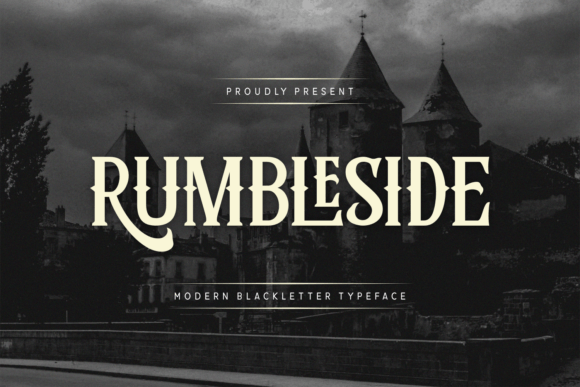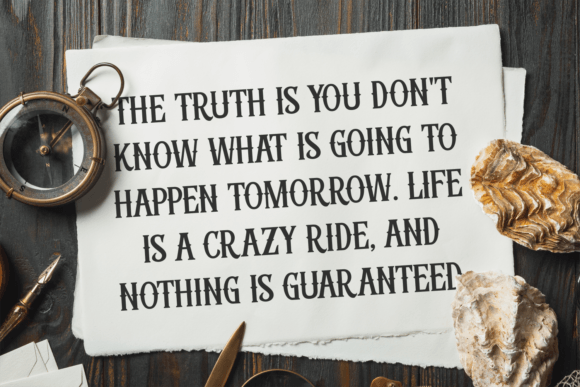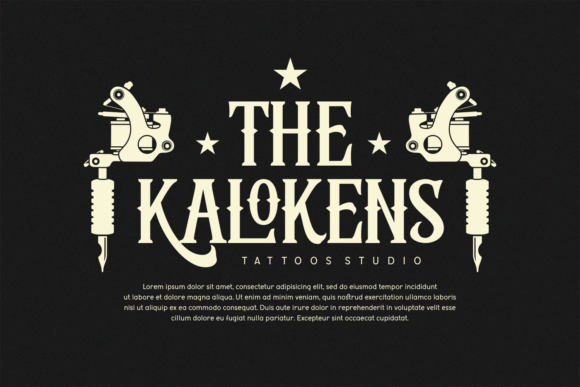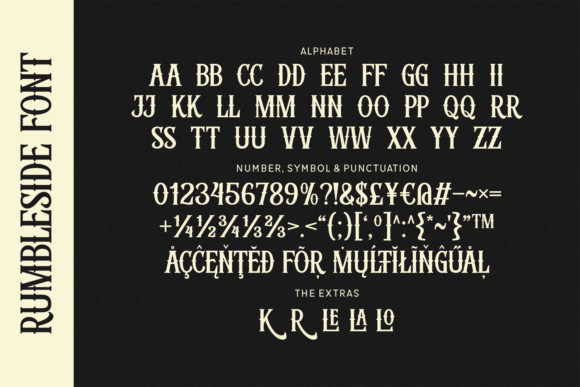
Rumbleside Font
About the Rumbleside Font
Experience the unique personality of Rumbleside Font, a font designed for impact. Rumbleside is a bold blackletter font that combines classic style with modern flair. Its sharp edges and elegant curves make it perfect for creating eye-catching designs, logos, or headlines. This font brings a sense of tradition and sophistication, making it ideal for any project that needs a strong visual impact.
Rumbleside excels in headline treatments, short impactful text blocks for branding projects, and striking logotypes. Its strong visual presence makes it unsuitable for body copy or extended text; readability suffers at smaller sizes. Consider it for posters, packaging design, or even short, bold captions within a larger layout.
The font’s personality is bold and assertive, yet retains a sophisticated elegance. Brands aiming for a sense of heritage, authority, or premium quality will find it highly effective.
Pair Rumbleside with a clean sans-serif like Montserrat for a contemporary contrast, or a classic serif like Garamond for a more traditional feel. A simple geometric sans-serif such as Futura can also create a striking, modern juxtaposition.
Rumbleside Font Usage Examples
Rumbleside Font Example